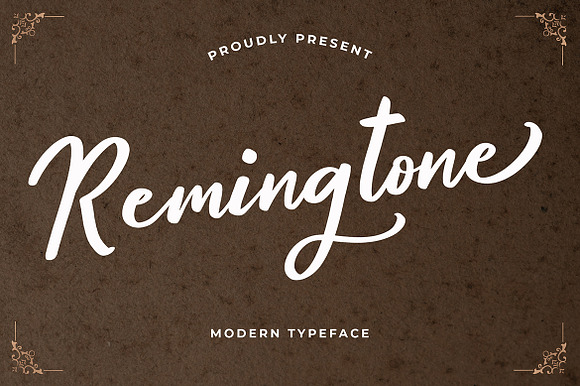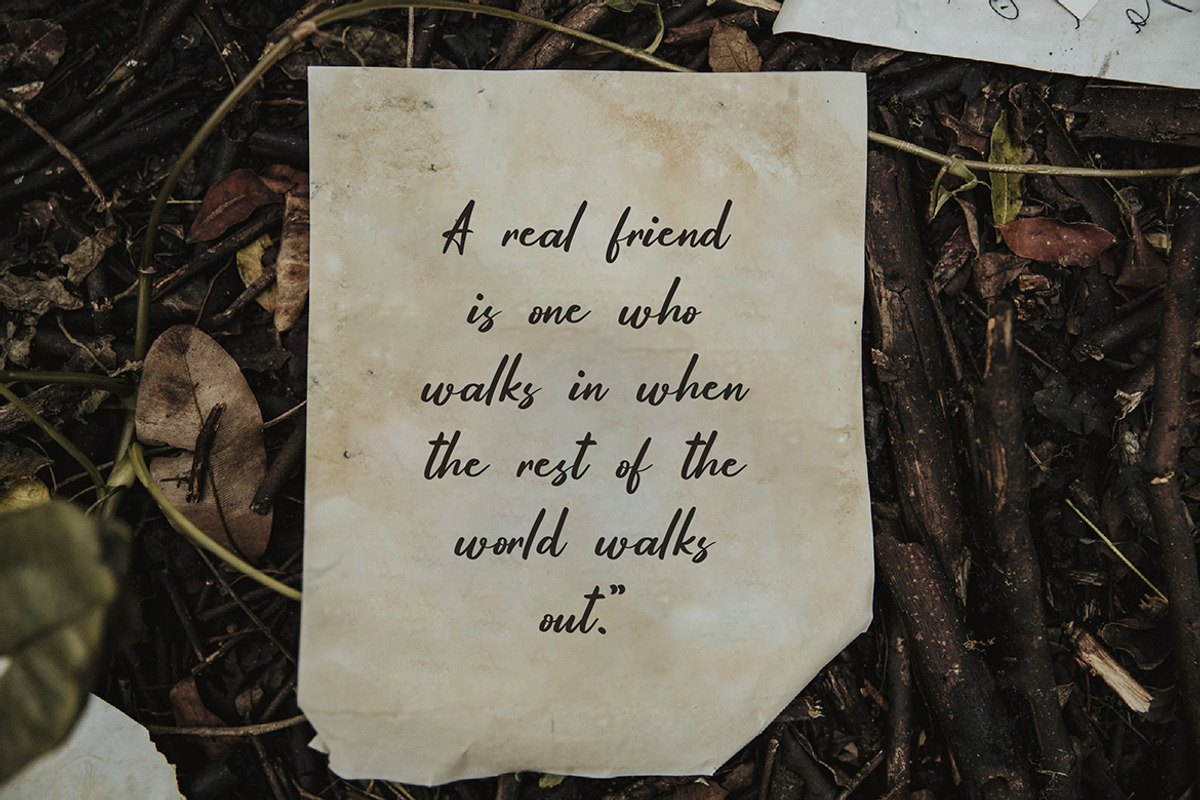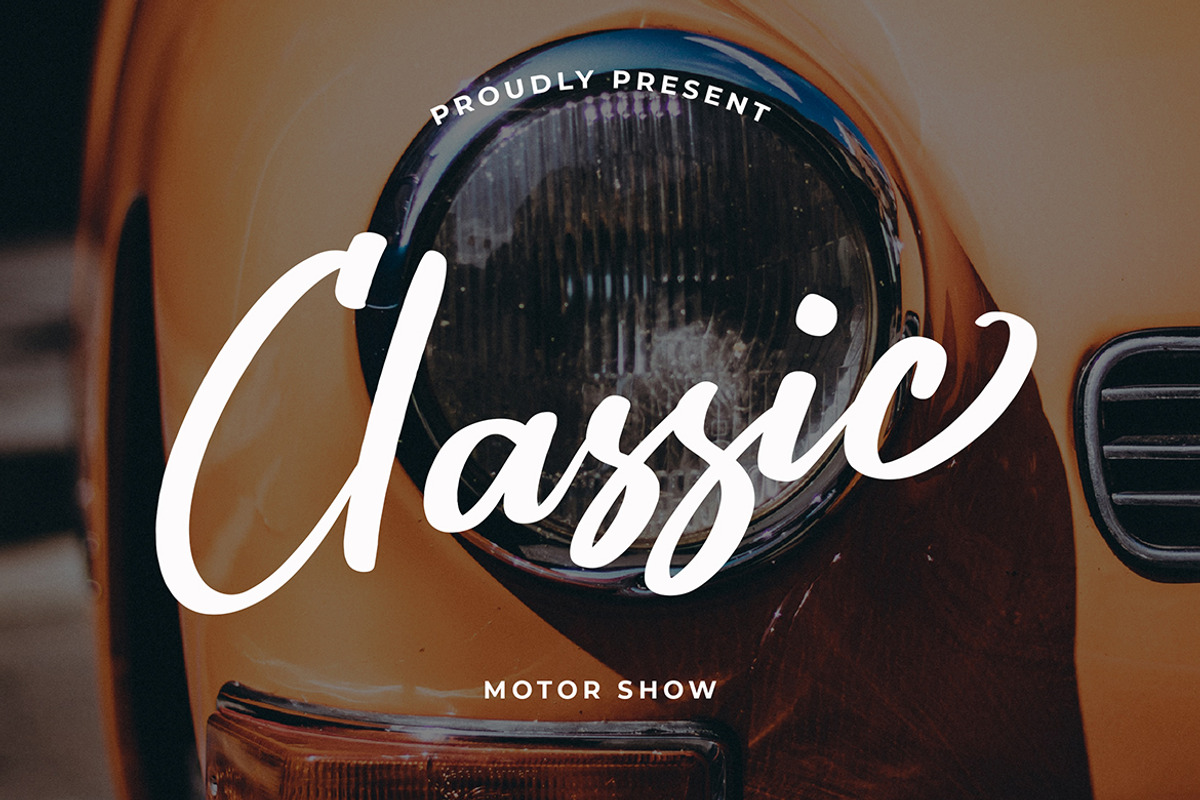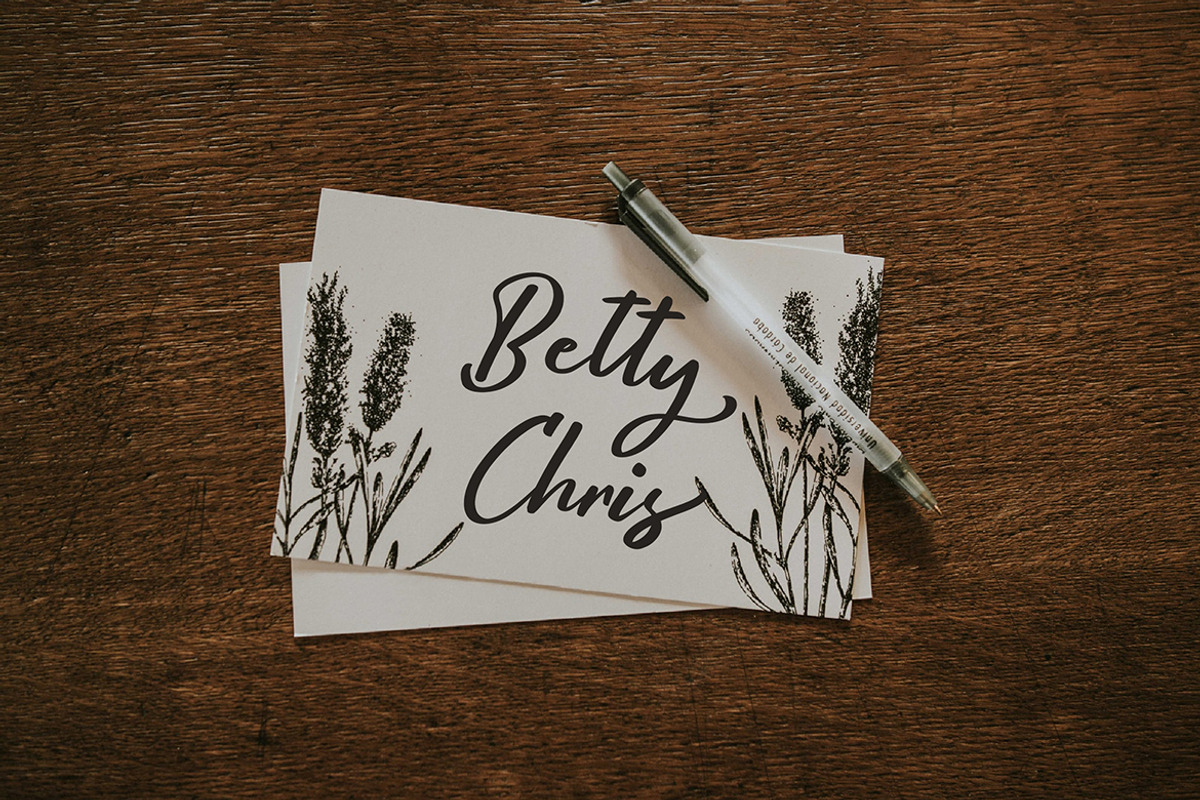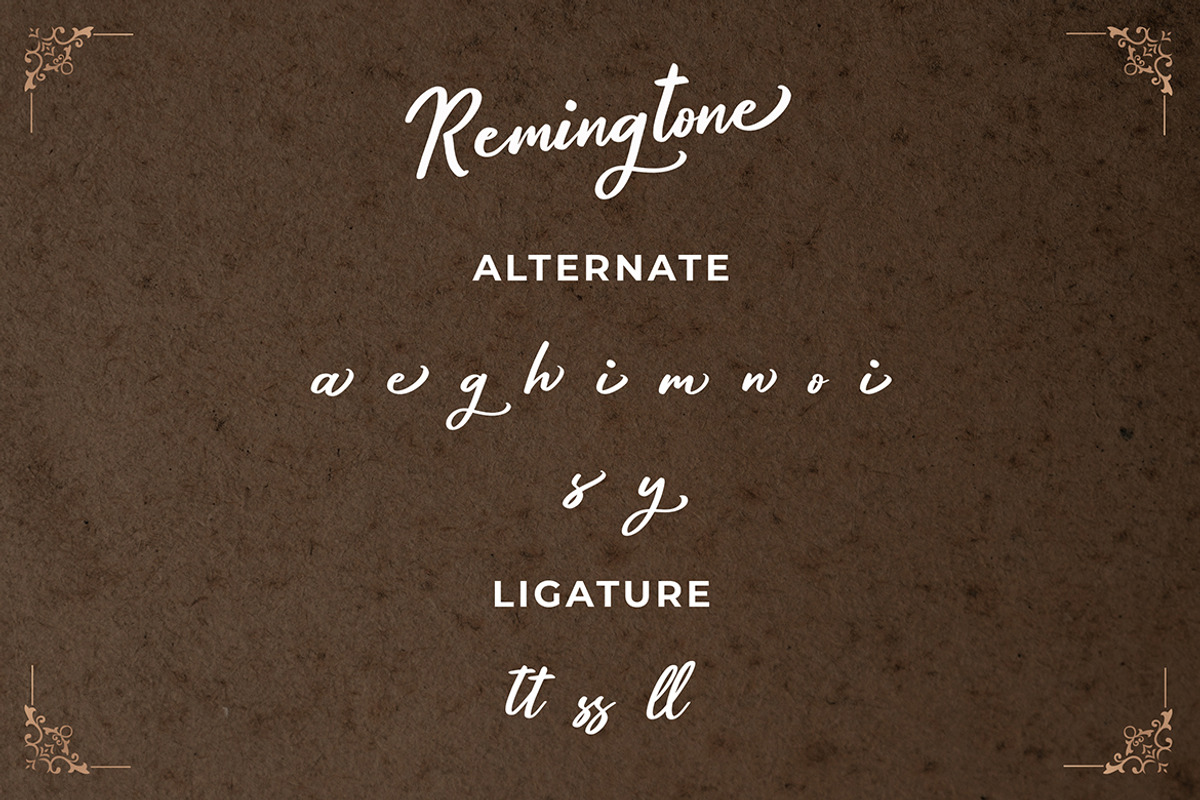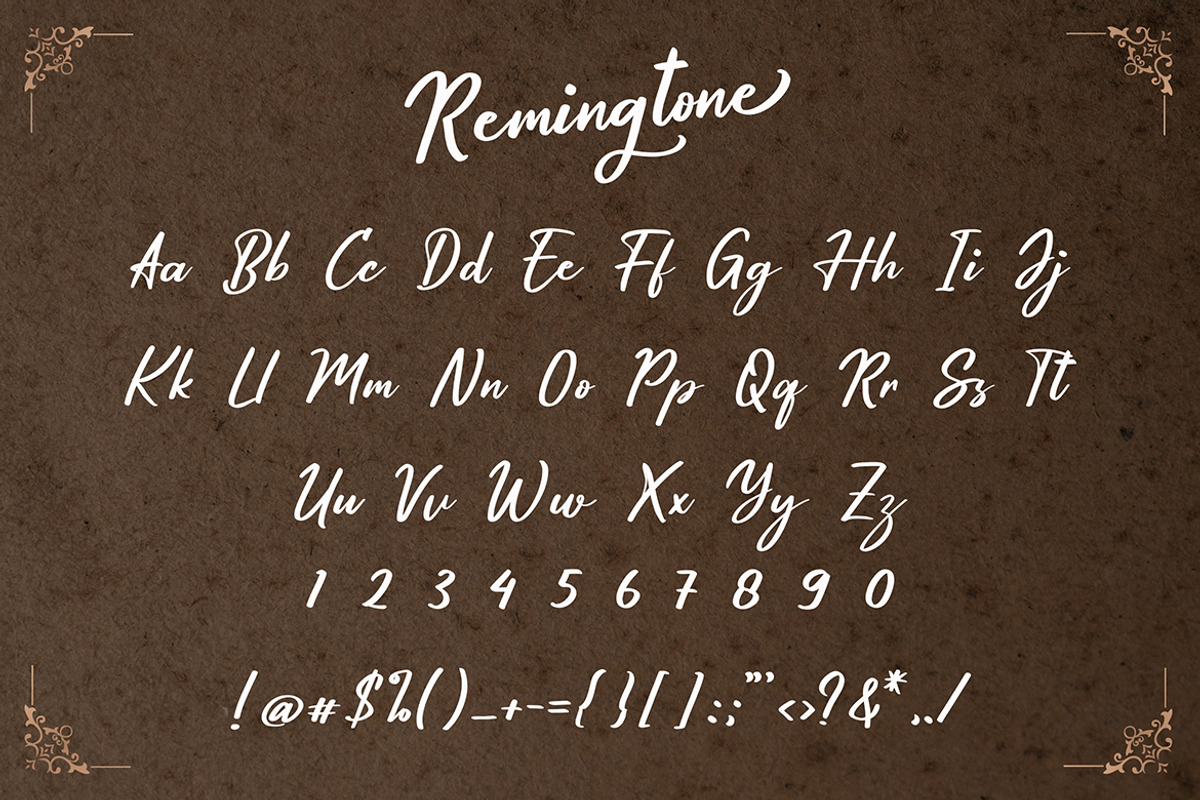
Remingtone Calligraphy Font
Remingtone is a beautiful calligraphy font with a unique alternate. This beautiful script can make your text appear elegant, luxurious, and modern!
Remingtone is perfect for branding projects, logo, wedding designs, social media posts, advertisements, product packaging, tshirt design, product designs, label, photography, watermark, invitation, stationery and any projects.
- Remingtone is a beautiful calligraphy font with a unique alternate.
Why Remingtone Calligraphy Font is worth a look
Remingtone Calligraphy Font by Formatika Studio fits naturally into Branding, posters, packaging, typography.